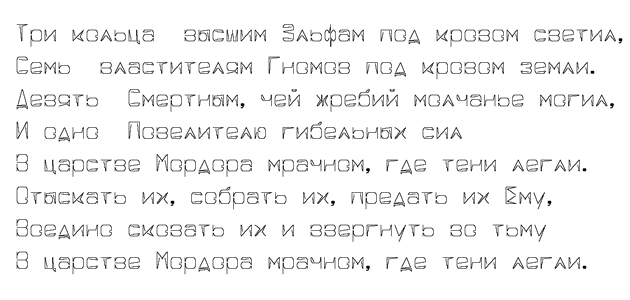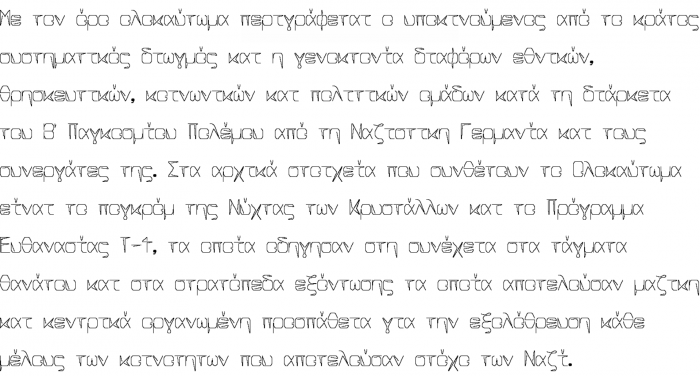
A new way of creating glyphs with just 1 line, this looks exciting. My favourites are Ff,Kk,t,Q,Xx,#,7. I would increase the global width of the glyphs (to increase the gap between glyphs use the tool in the FontStructor preview) to make them a little easier to read in a text.
The spacing looks good :)
Keep Fontstructing, you have some great ideas!
There are several fontstructions which use, or have extended, a 'tool' made by a fontstructor to obtain different angles and make larger curves. You might find it useful for your design and building new shapes and arrangements: http://fontstruct.com/fontstructions/show/334291/all_composites_saved_in_my_bricks
Interesting look, nicely done. Perhaps the dots could be unfilled to fit with the rest.
Some letters look like tools, other letters look like a font for space age. I like that you have all the letters to write in French, even the historic French ;) Your font looks good.
Added support for "Basic Cyrillic" to "Irration"
Nice Etch-a-Sketch font. The Cyrillic set works fine. There are kerning issues with letter Г you can't address in FS. Good work. 10/10
@Frodo7 Thank you for attention! I have corrected the kerning of the letter "Г", but do not know how well I did. And yet I corrected the letter "Є", "є", "Э" and "э" to make it easier to read. Check out my other work!
Added support for "Latin Extended-A" to "Irration" and changed letter "E".
This font looks really good, you are on your way to be one of the FS members who has a lot of special ideas :) It's so nice to see you continuing your work and improving. Well done.
Added support for "Latin Extended-B" to "Irration".
Wow, you are working for a lot of languages, I'm sure people will appreciate the work you are doing here, and I am impressed with this font
Some of the new letters look very artistic, not really like letters at all, which gives a beautiful line of text. That is good for decorative work when people don't need to communicate thoughts and work instead with the shapes (not knowing which letter it is I often write total nonsense -if anybody were to know the language the letters belong to- because sometimes I like to use letters and symbols as decorative shapes rather than for text production)
In the meantime, I will create IPA Extensions.
Added support for "IPA Extensions " to "Irration"
Very good additions, the font is coherent (I mean that all glyphs follow the same design rules). I wonder if combined letters and wider letters would benefit if you enlarged their widths, to show their shapes more clearly (like Œ,DŽ,Ƕ,ȸ,ʥ, Ж and others).